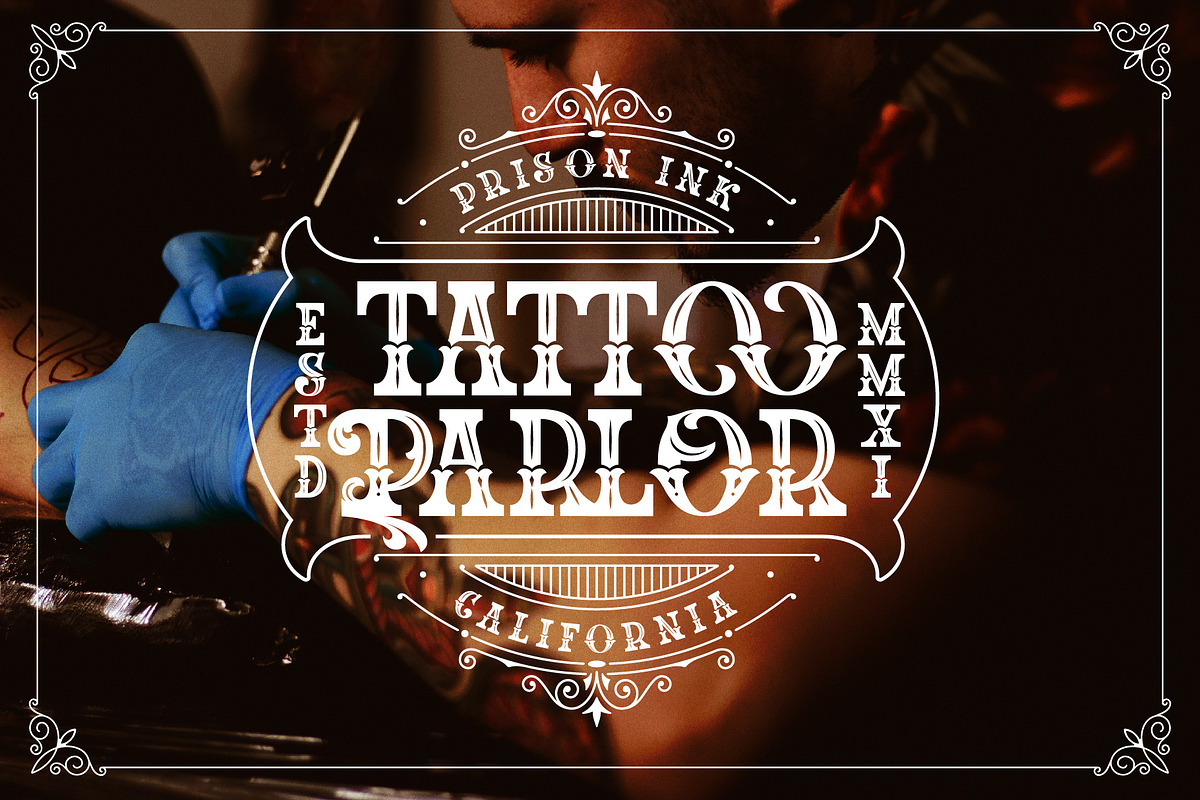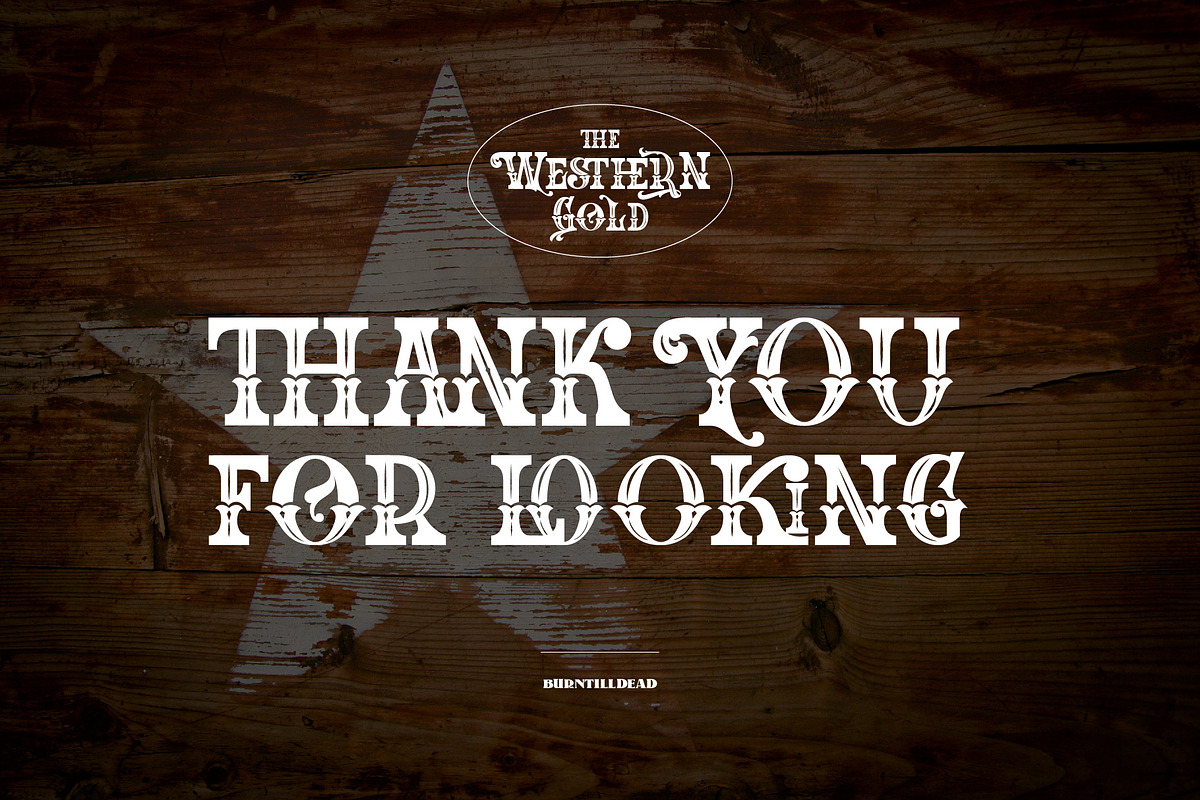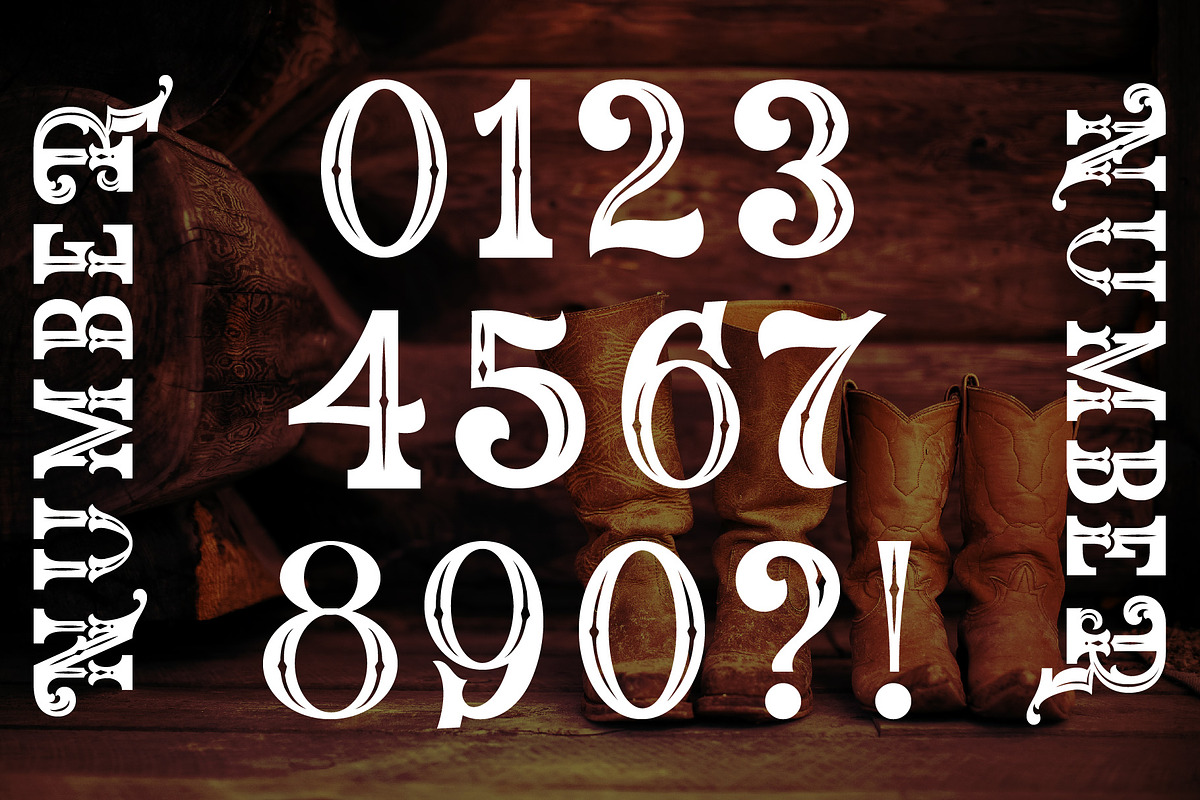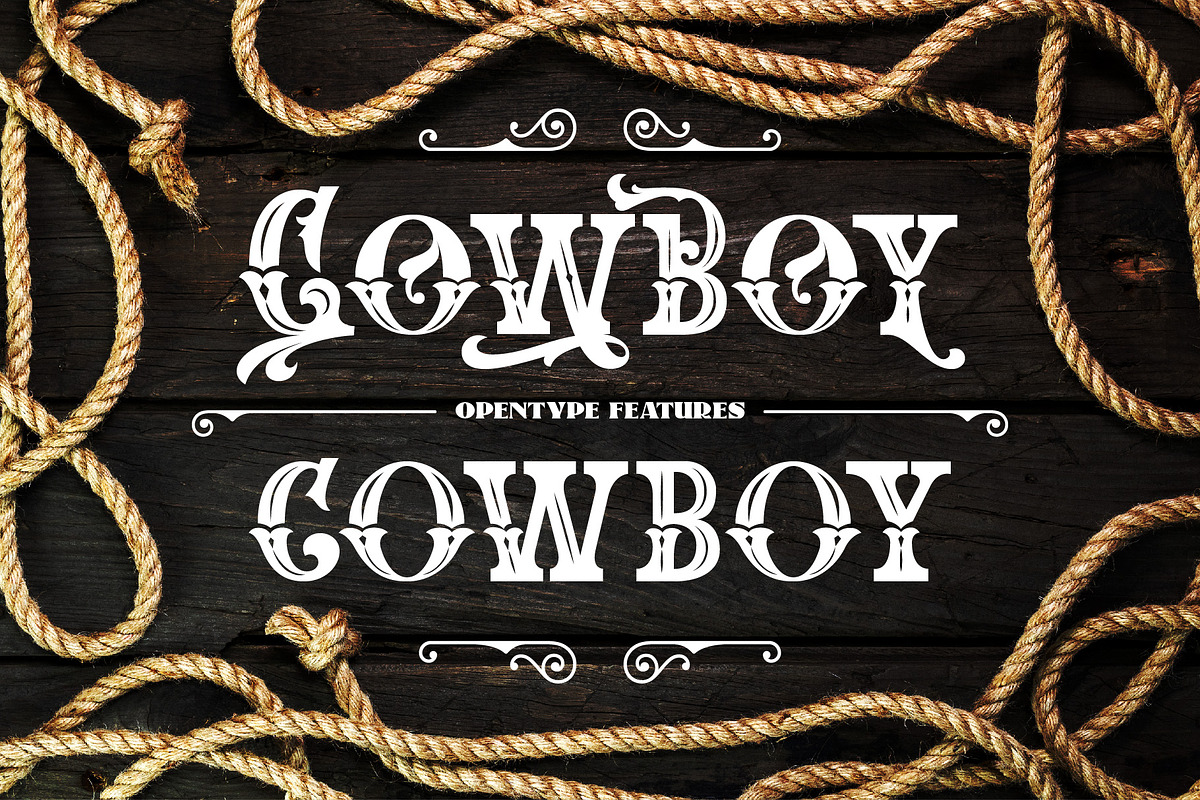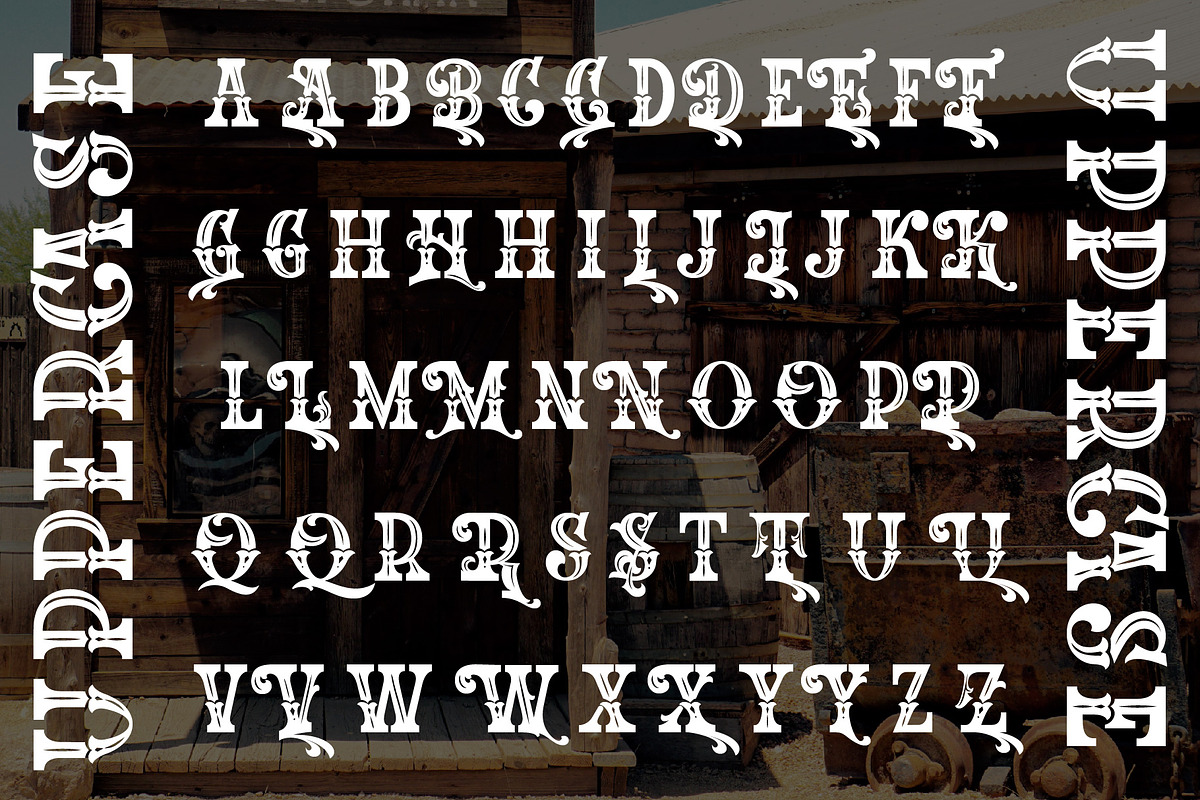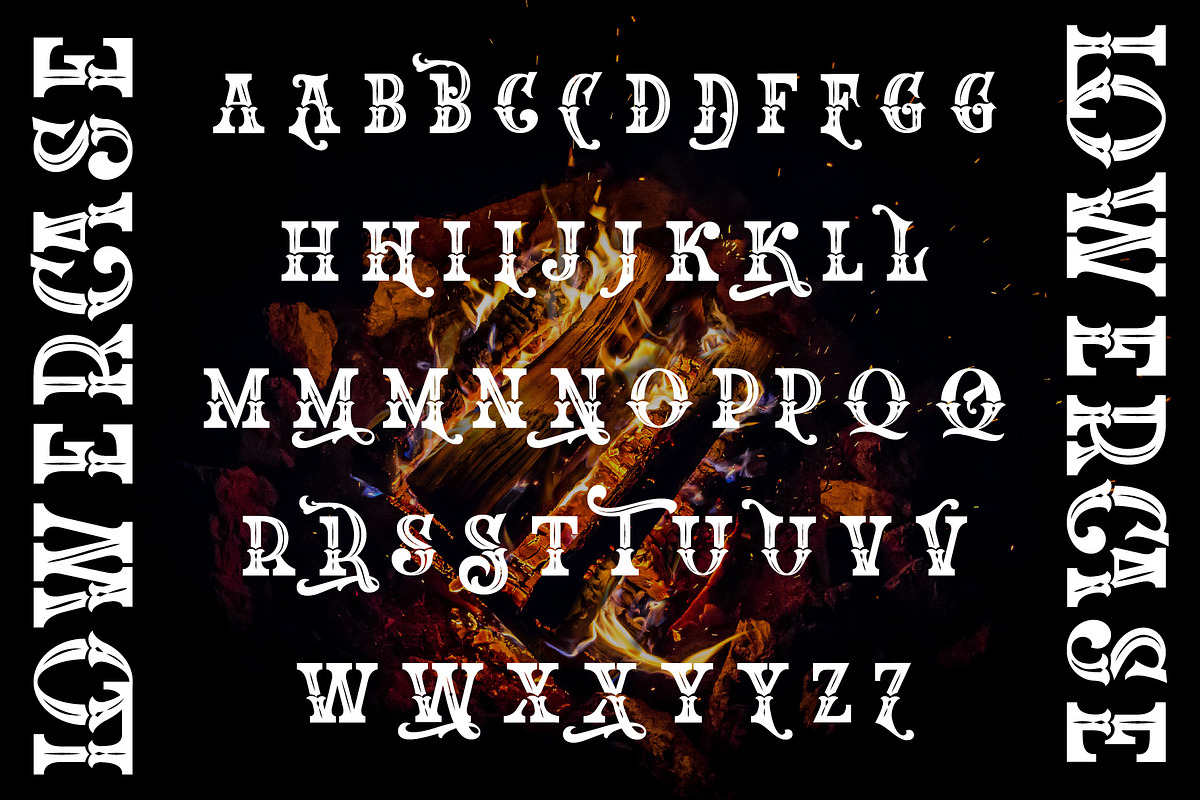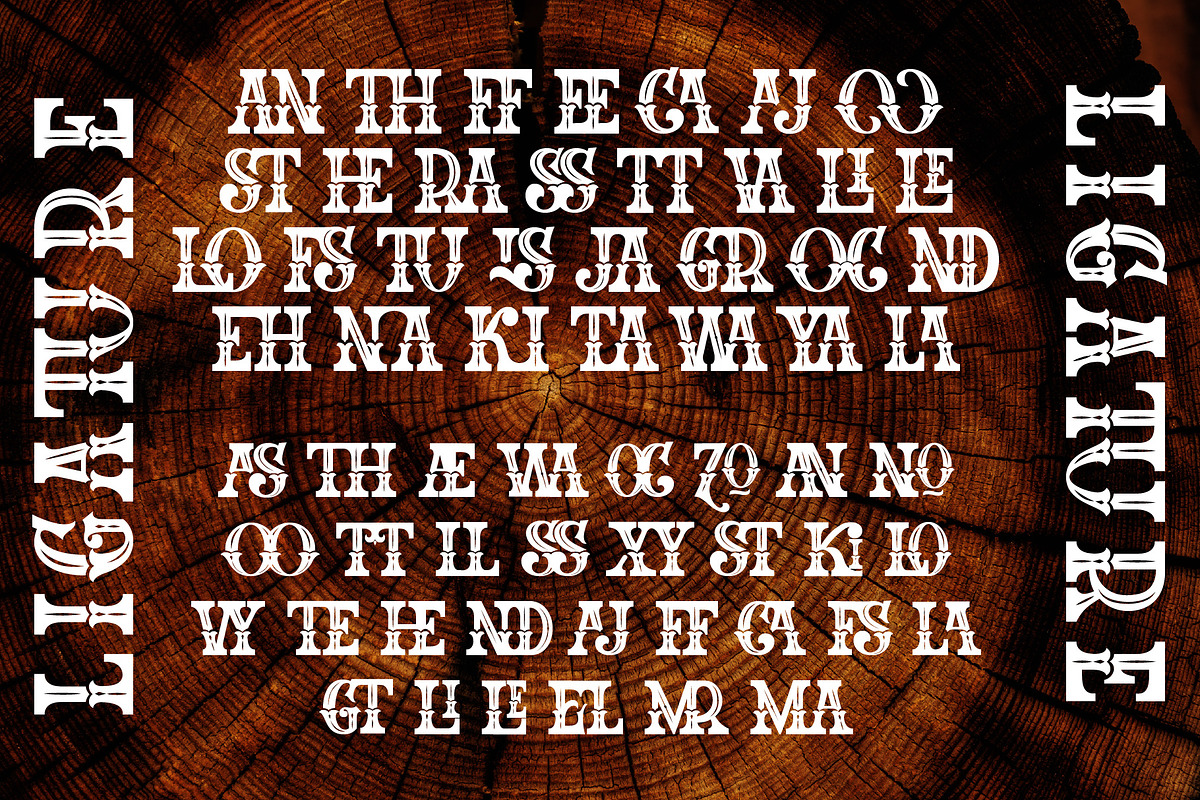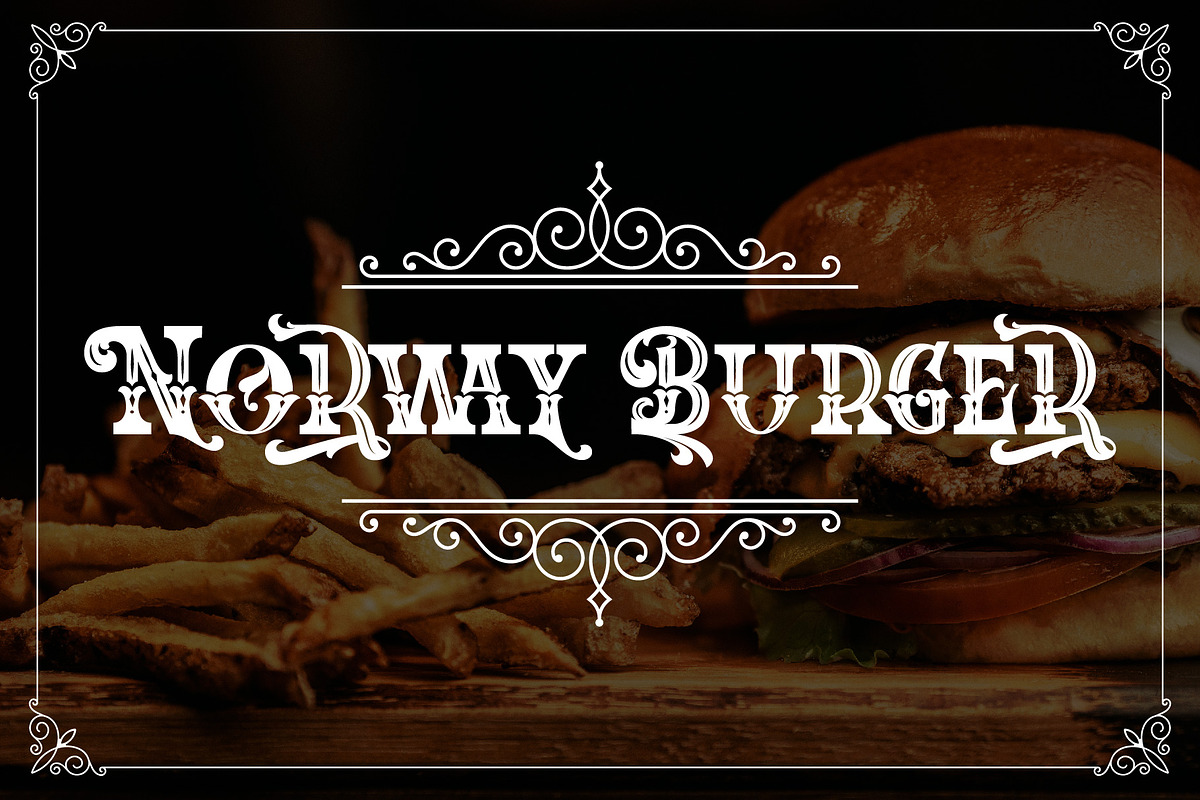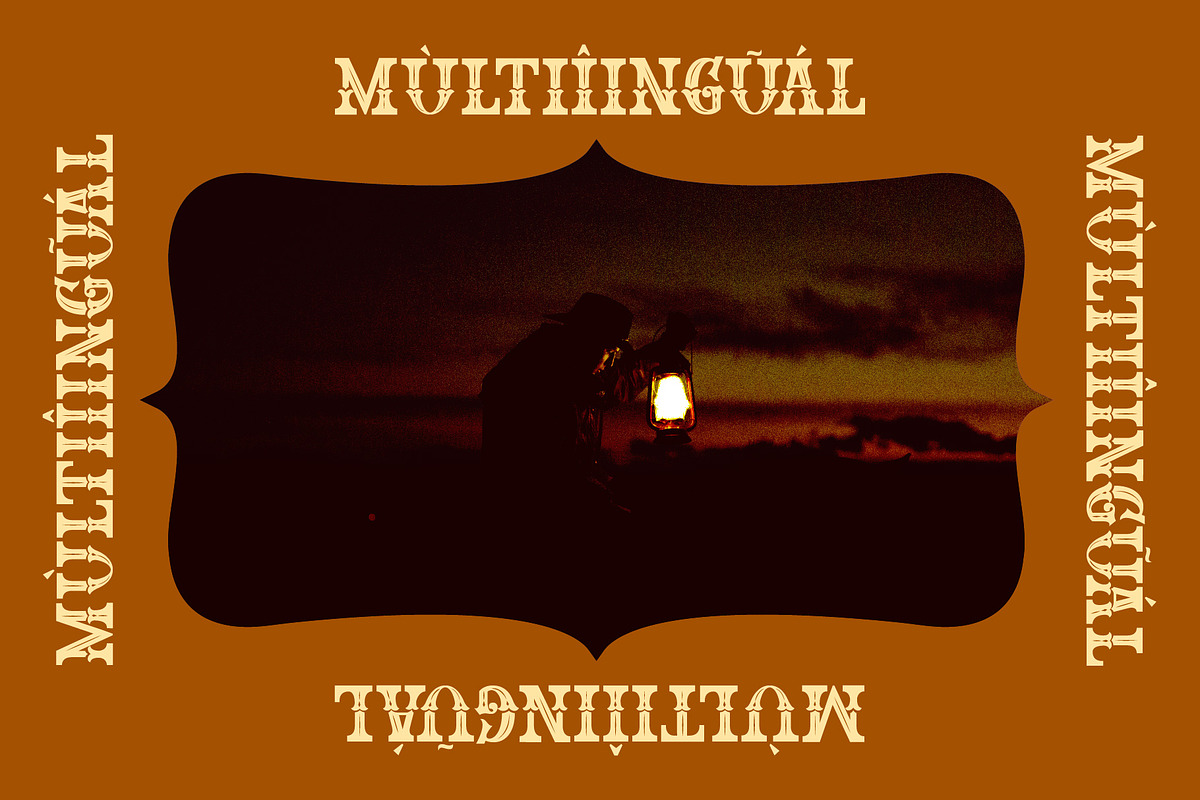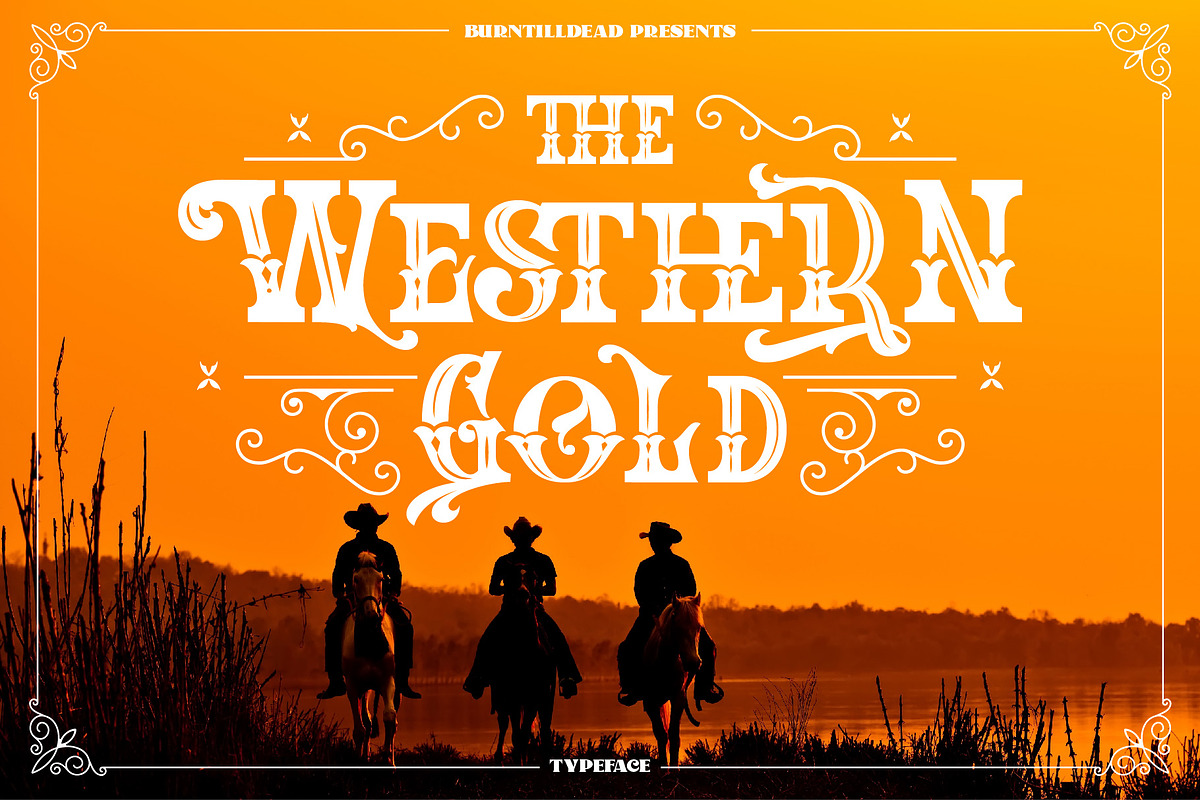
The Western Gold
Howdy cowboy, say hello to “The Western Gold” a brand new western font, inspired by classic American wood sign style. Powered with opentype features (Alternates & ligatures) - Mulitilingual ready!
Perfect and suitable for branding, headline, logotype, sticker, editorial design, and etc.
Multi languages included: Afrikaans, Albanian, Asu, Basque, Bemba, Bena, Cebuano, Chiga, Cornish, Corsican, Danish, Embu, English, Estonian, Filipino, Finnish, French, Friulian, Galician, German, Gusii, Ido, Indonesian, Interlingua, Irish, Italian, Javanese, Jju, Kabuverdianu, Kalaallisut, Kalenjin, Kamba, Kikuyu, Kinyarwanda, Kurdish, Lojban, Low German, Luo, Luxembourgish, Luyia, Machame, Makhuwa-Meetto, Makonde, Malagasy, Malay, Manx, Meru, Morisyen, North Ndebele, Northern Sotho, Norwegian Bokmål, Norwegian Nynorsk, Nyanja, Nyankole, Occitan, Oromo, Portuguese, Romansh, Rombo, Rundi, Rwa, Samburu, Sango, Sangu, Sardinian, Scottish Gaelic, Sena, Shambala, Shona, Slovenian, Soga, Somali, South Ndebele, Southern Sotho, Spanish, Swahili, Swati, Swedish, Swiss German, Taita, Taroko, Teso, Tsonga, Tswana, Turkmen, Vunjo, Walloon, Walser, Xhosa, Zulu
A-Z Character Set
a-z Characters set
Numerals & Punctuations (OpenType Standard)
Alternate Uppercase & Lowercase
ligature